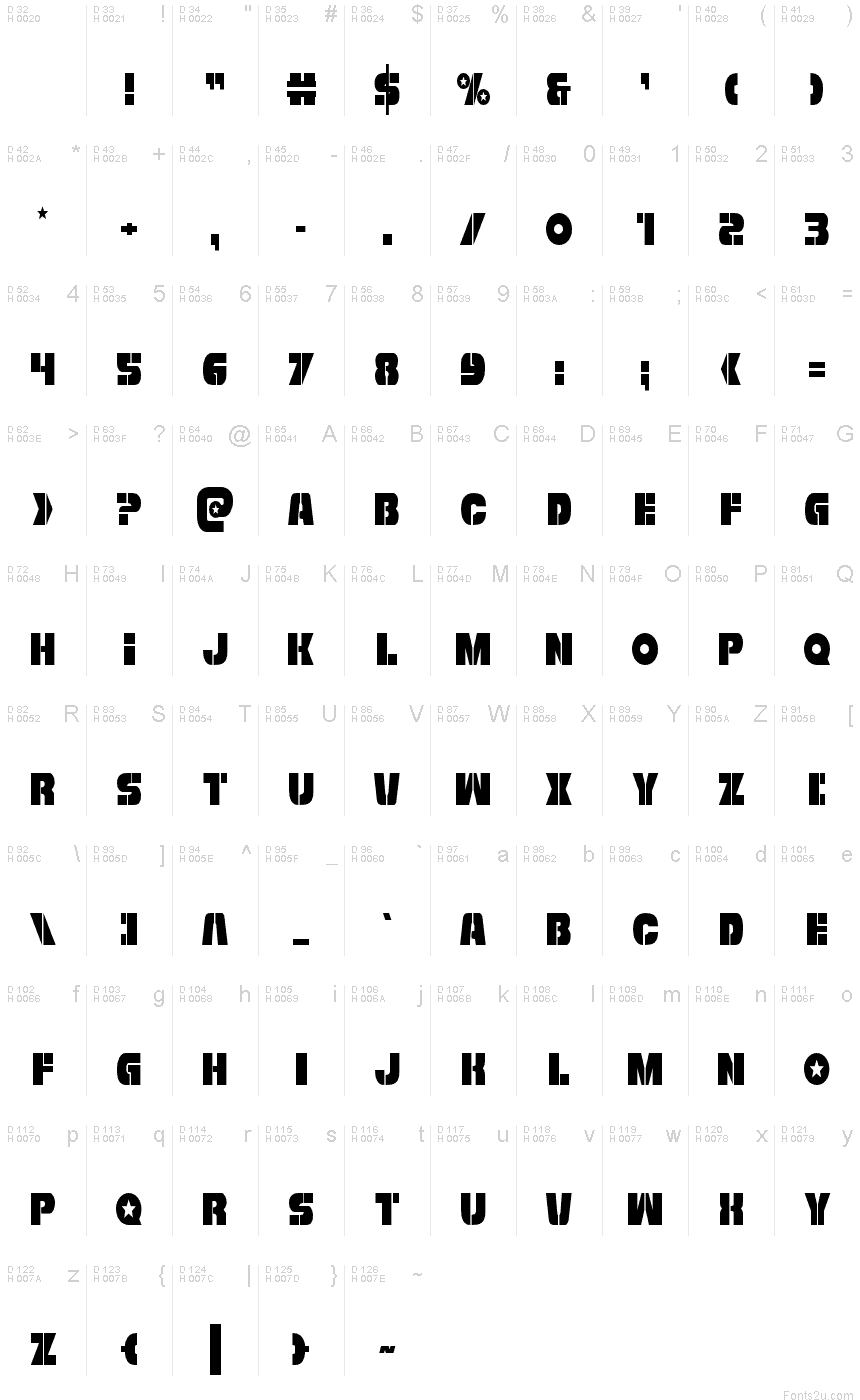
Freedom Fighter Condensed, created in 2012 by Iconian Fonts, is a free military display font with towering, tightly packed capitals and a dense, graphic silhouette. Broad vertical strokes dominate the design, interrupted by sharp stencil cuts, narrow internal openings, angled slices, and occasional emblem-like details.
Action-game title cards are its clearest assignment, especially for combat-themed releases. The same compressed force and cut-metal details suit recruitment-style posters, sports merchandise, and event signage, linking these settings through lettering that can double as a compact wordmark or a martial emblem rather than ordinary display type.
Freedom Fighter includes a complete Latin character set, including the euro symbol, and several alternate uppercase and lowercase letter styles.